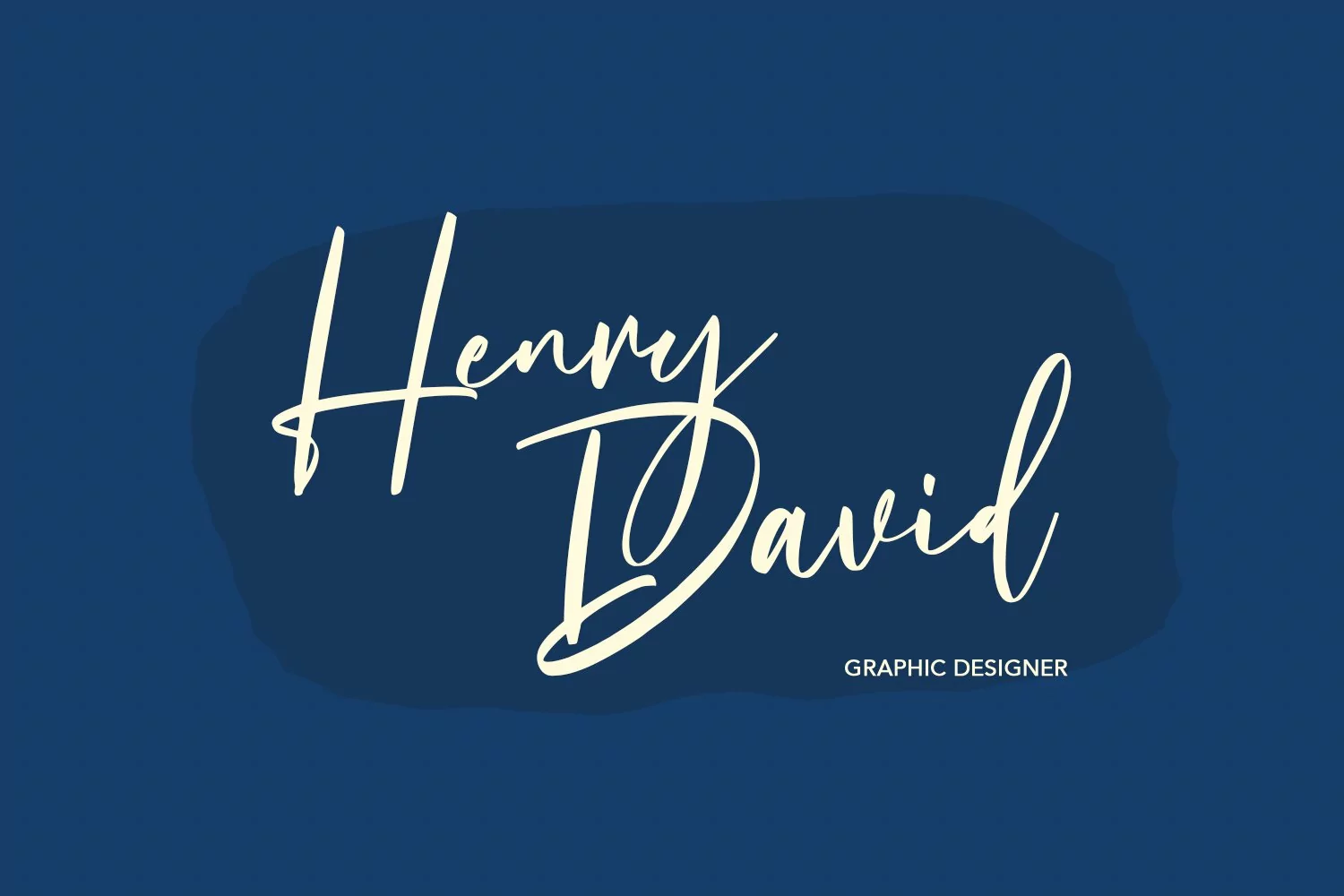
Salvadores is casual signature font, with high contrast light stroke, slant and fun character. It has Opentype features ligatures of character, To give you an extra creative work. Salvadores signature font support multilingual more than 100+ language. This font is good for logo design, Social media, Movie Titles, Books Titles, a short text even a long text letter and good for your secondary text font with sans or serif. Make a stunning work with Salvadores font.
Salvadores